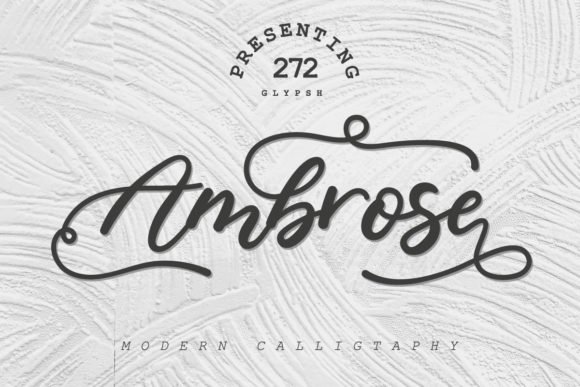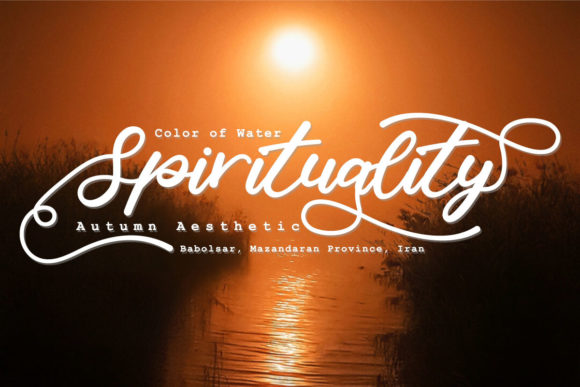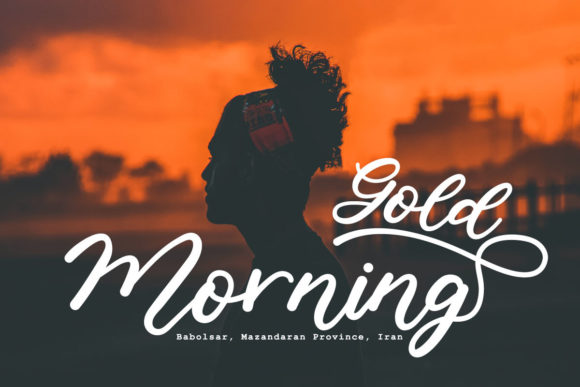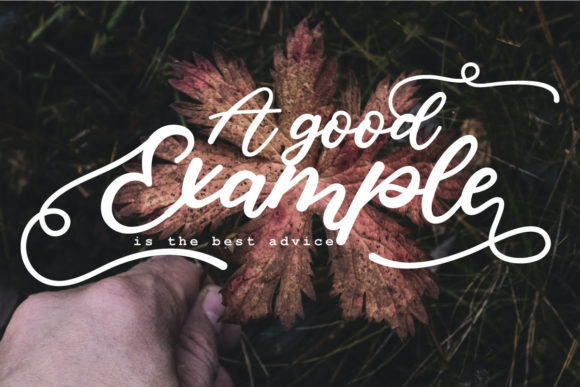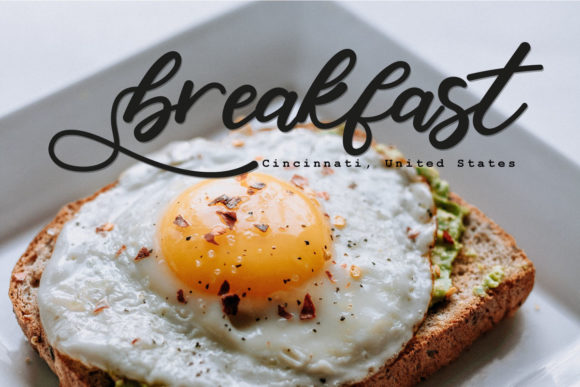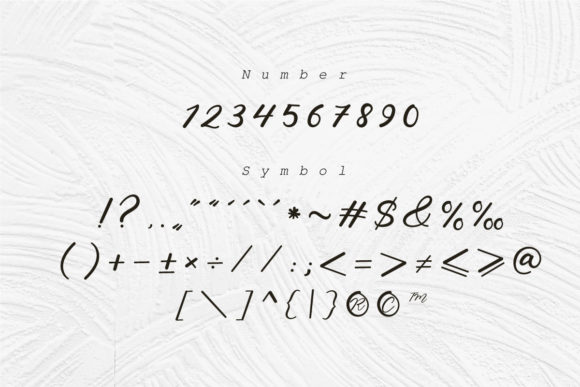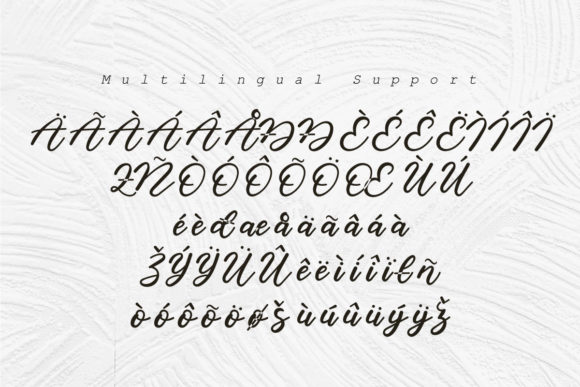
The Art of Typography: Introducing Ambrose Font
Have you ever stared at a blank page, searching for the perfect font to bring your creative vision to life? You know, that moment when the words just flow and your design takes shape? It’s a magical feeling, and for designers, it’s a constant pursuit. One font that can evoke that magic is the beautiful and flowing Ambrose Font.
Ambrose Font is a stunning handwritten font designed to make a lasting impression. Its elegant curves and subtle flair make it perfect for wall displays, wedding invitations, social media post logos, and any project that requires impressive typography. Whether you’re a seasoned designer or just starting out, Ambrose Font is a valuable addition to your toolkit.
Ambrose Font Key Features
- Unique Characteristics: Ambrose Font features a unique blend of modern and classic elements, with a distinctive x-height and letterform proportions that set it apart from other fonts.
- Kerning and Ligatures: The font includes expertly crafted kerning and ligature pairs, ensuring smooth and professional-looking text even in complex typography.
Ambrose Font Review
I’ve been playing around with the Ambrose Font, and I have mixed feelings about it. ✨ First of all, I love the elegant and sophisticated feel it brings to any design project. The letterforms are beautifully crafted, with clean lines and a subtle flair that makes it perfect for high-end branding and editorial content.
- ✨ Elegant and sophisticated feel
- ✨ Perfect for high-end branding and editorial content
- ✨ Beautifully crafted letterforms
However, there are some limitations to consider. ⚠️ The font is quite heavy, which can make it difficult to read in large blocks of text. Additionally, the weight variation is a bit limited, which can make it hard to achieve a good balance between contrast and legibility.
- ⚠️ Heavy weight can be difficult to read in large blocks of text
- ⚠️ Limited weight variation can make it hard to achieve good balance
Overall, I think the Ambrose Font is a great choice for designers who want to add a touch of elegance and sophistication to their projects. However, it may not be the best fit for projects that require a lot of text or complex layouts.
Ambrose Font: A Practical Application Guide
Tips for getting the most out of the Ambrose Font in Canva include using it for headings and titles, and experimenting with different font sizes and colors to create visual hierarchy.
Tips for getting the most out of the Ambrose Font in Adobe Photoshop or Illustrator include using it for creative typography and experimenting with font combinations to add visual interest.
Tips for getting the most out of the Ambrose Font in PowerPoint or Word include using it for presentations and documents, and experimenting with font sizes and colors to create visual hierarchy.
The Ambrose Font is ideal for:
- Creative typography
- Presentations and documents
The Amb